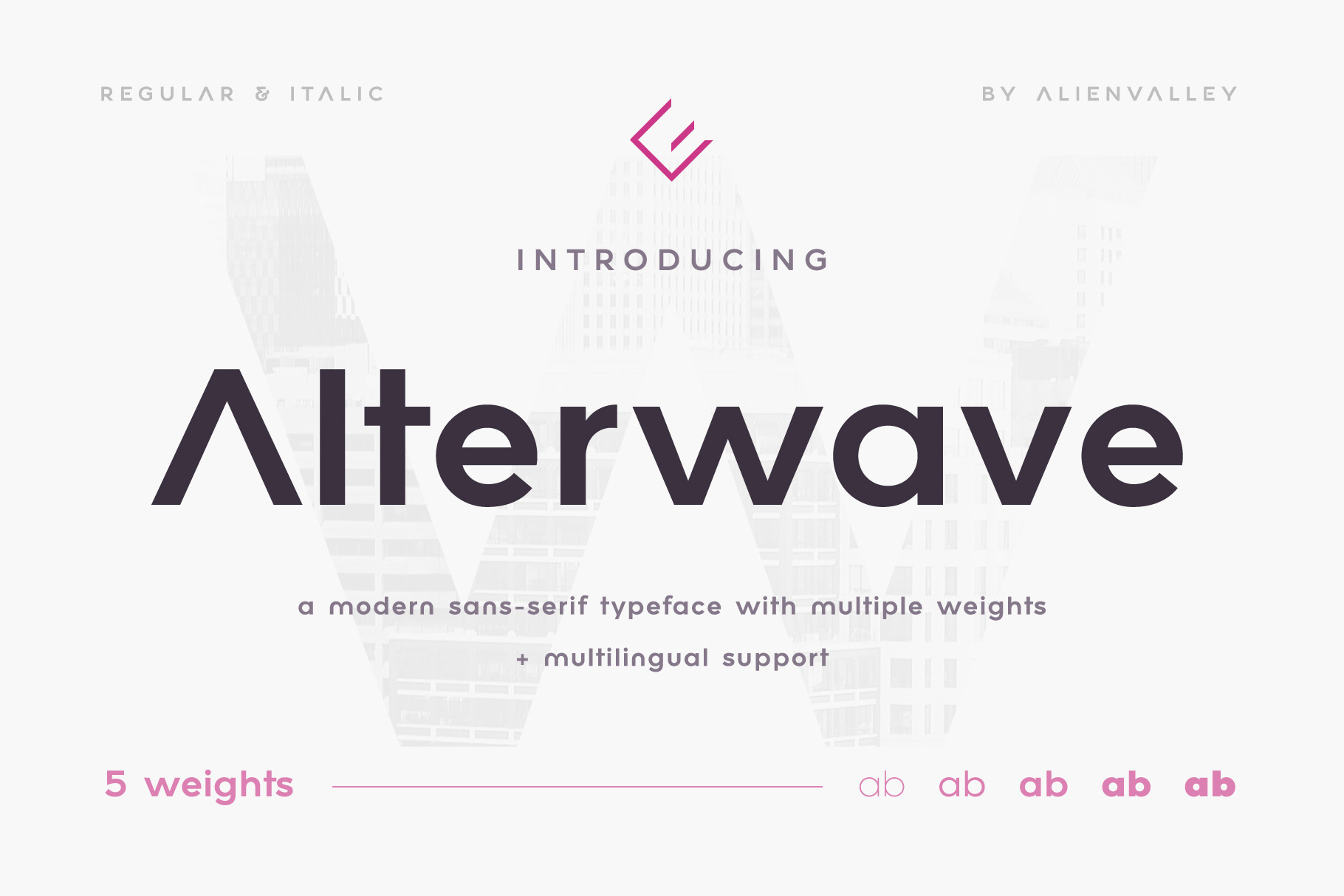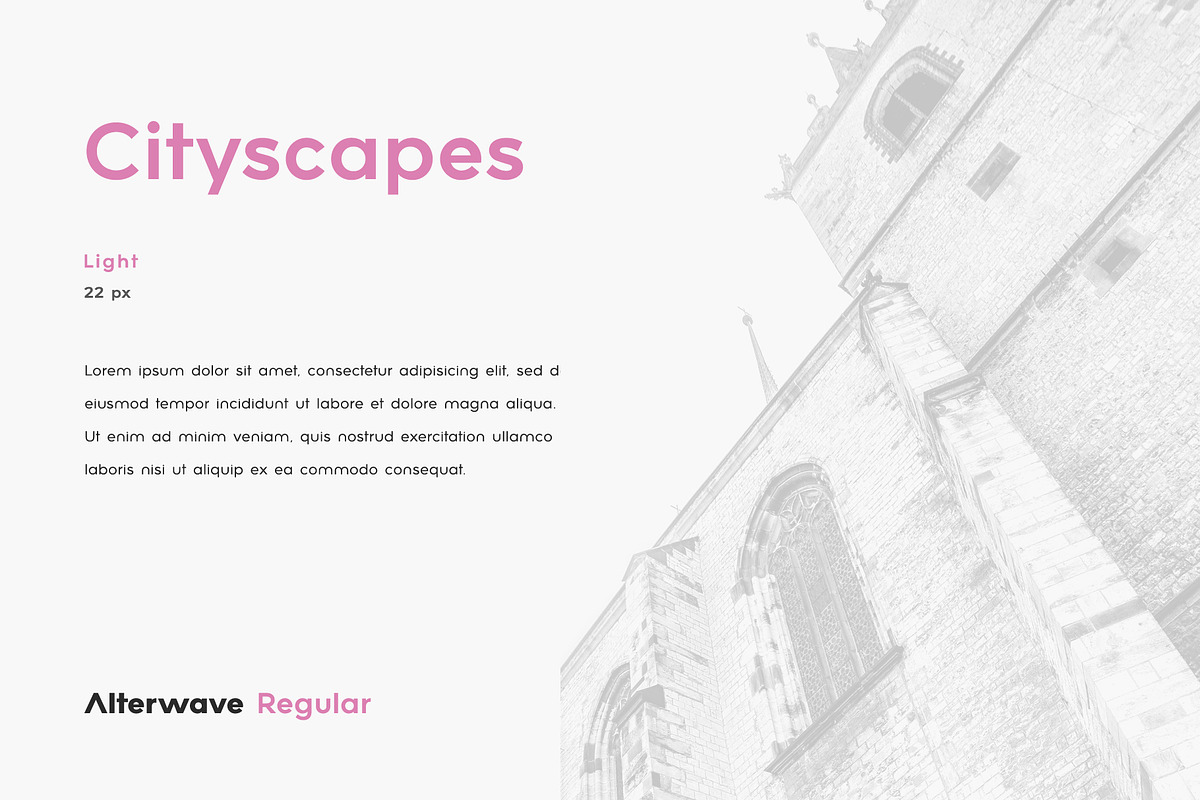
Alterwave - Sans Serif Font Family
Alterwave is a highly versatile, modern, sans serif typeface with 5 weights and regular + italic styles for each weight, adding up to a total of 10 styles. You can use it for almost any kind of design template as it works great for both headlines and large chunks of text.
- 5 Weights
- Regular & Italic for each weight